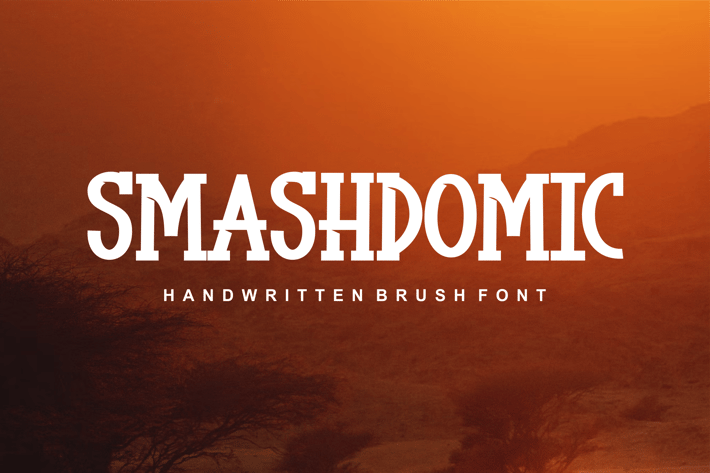
Smashdomic - modern font
Introducing our new product Smashdomic - modern font Modern Font
Smashdomic - modern font - Modern Font is a bold and authentic display font. The font is suitable for any branding project like logo, t-shirt printing, esport, and many more. outstanding in a wide range of contexts.